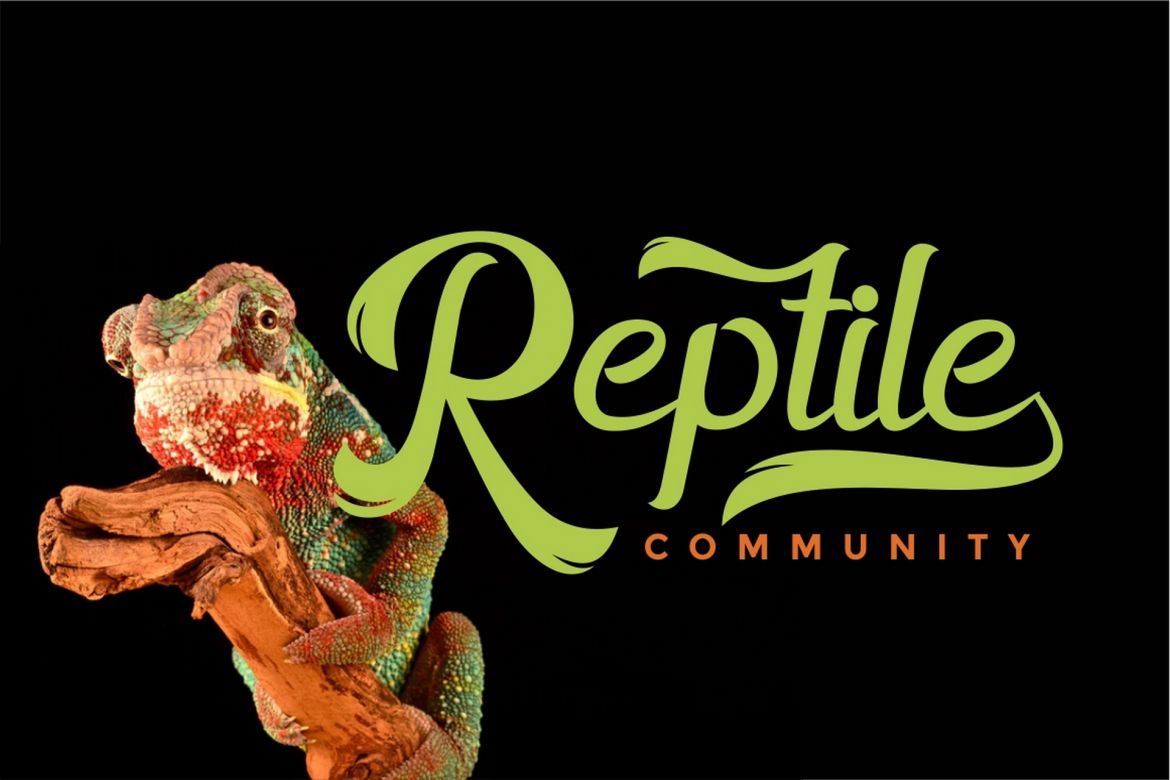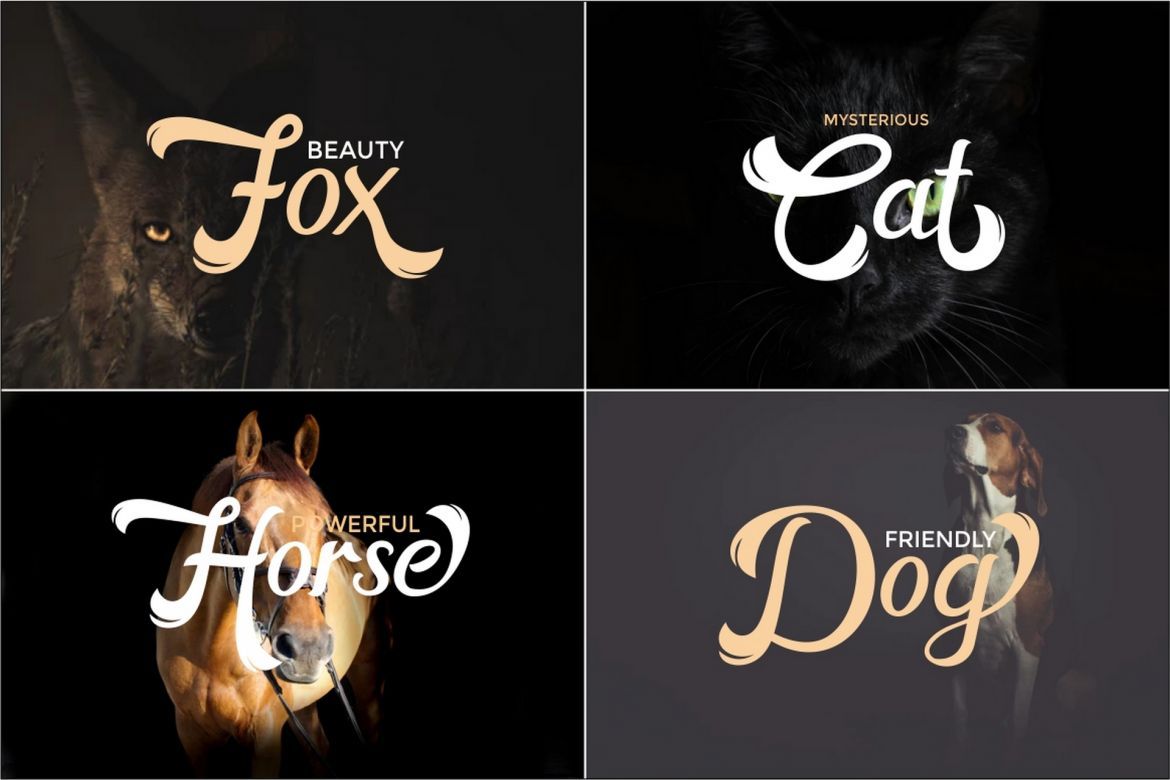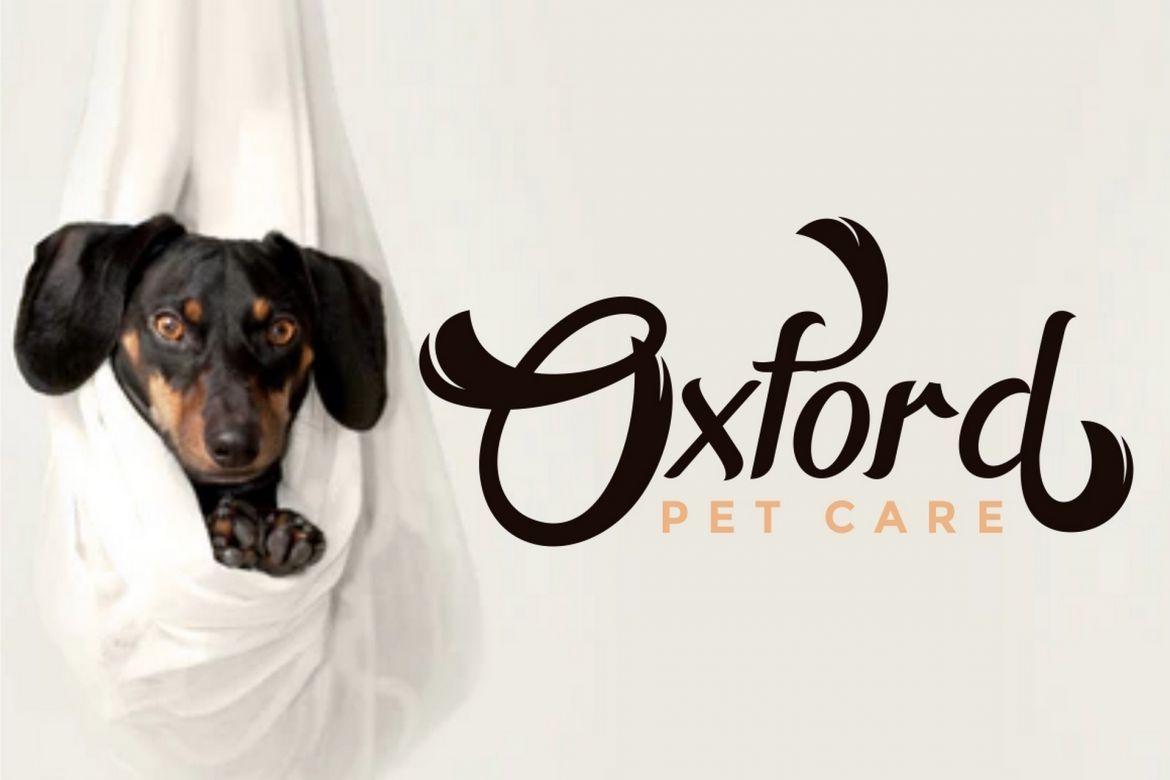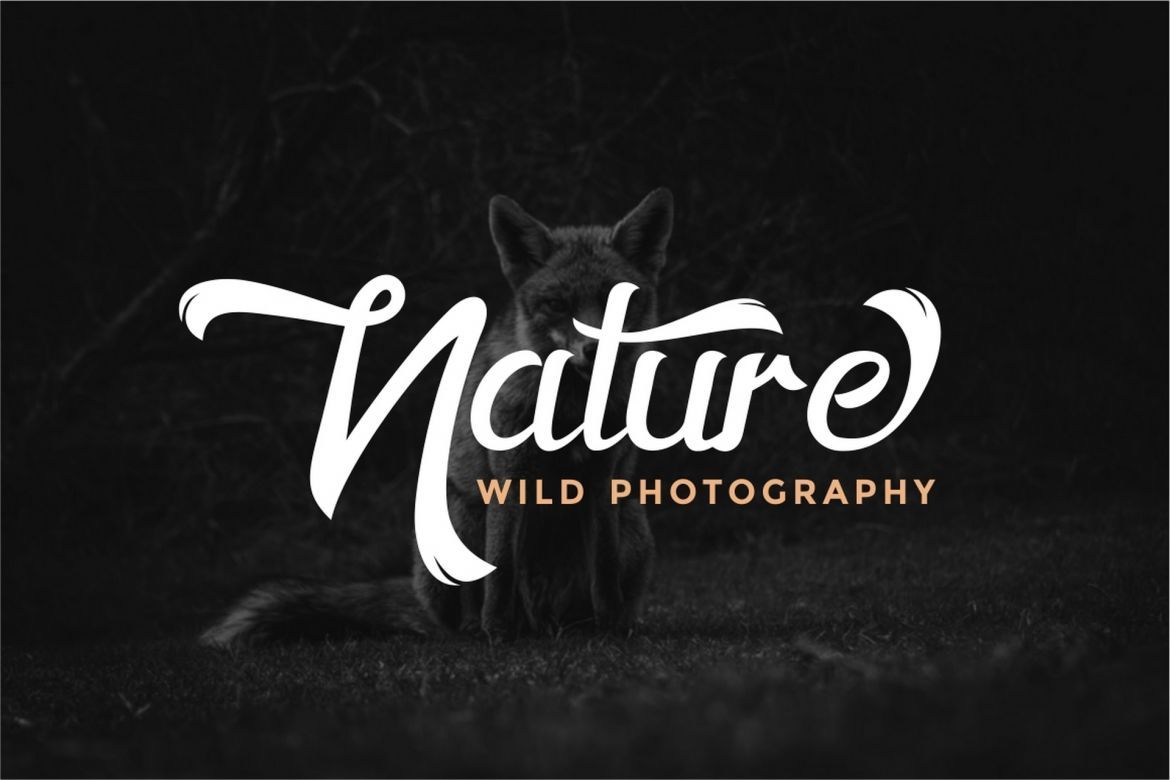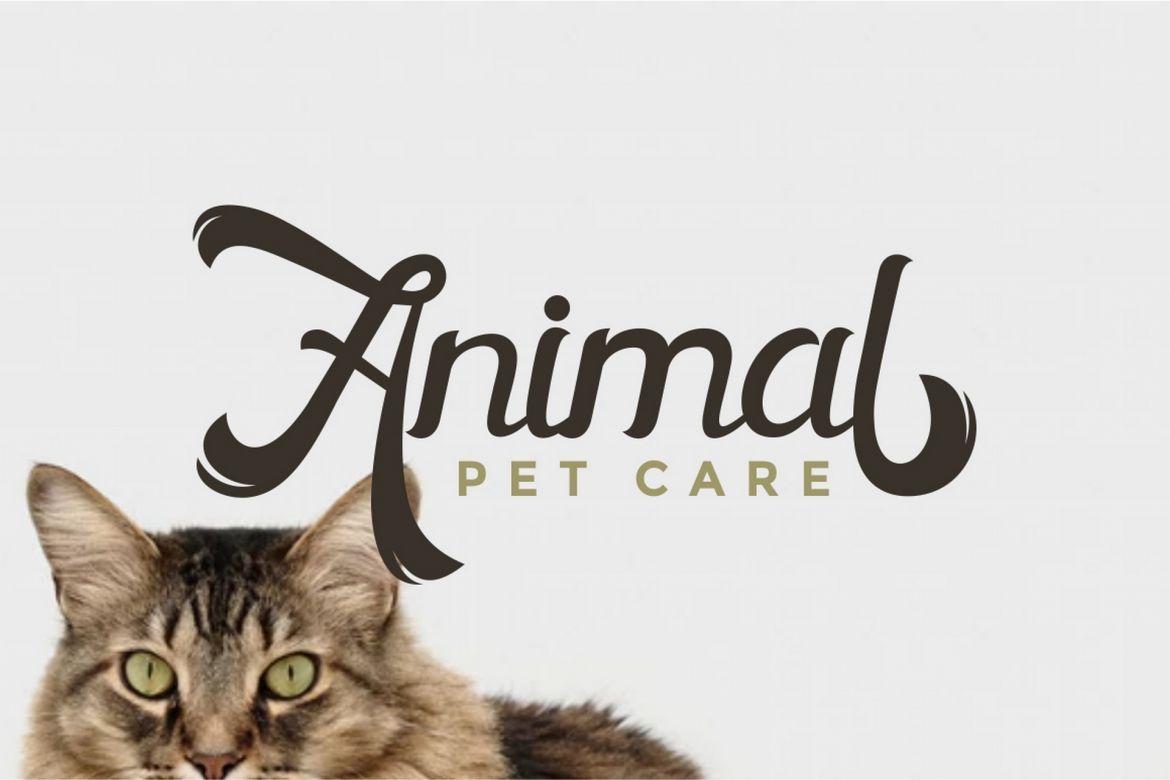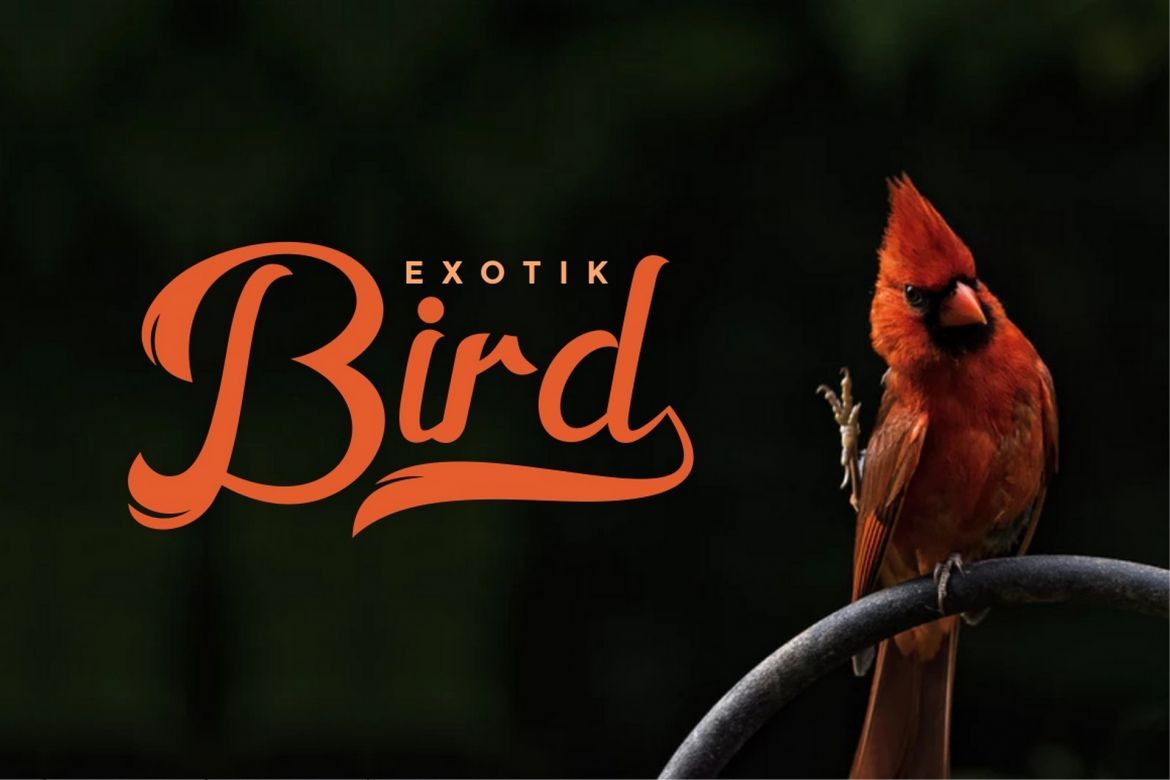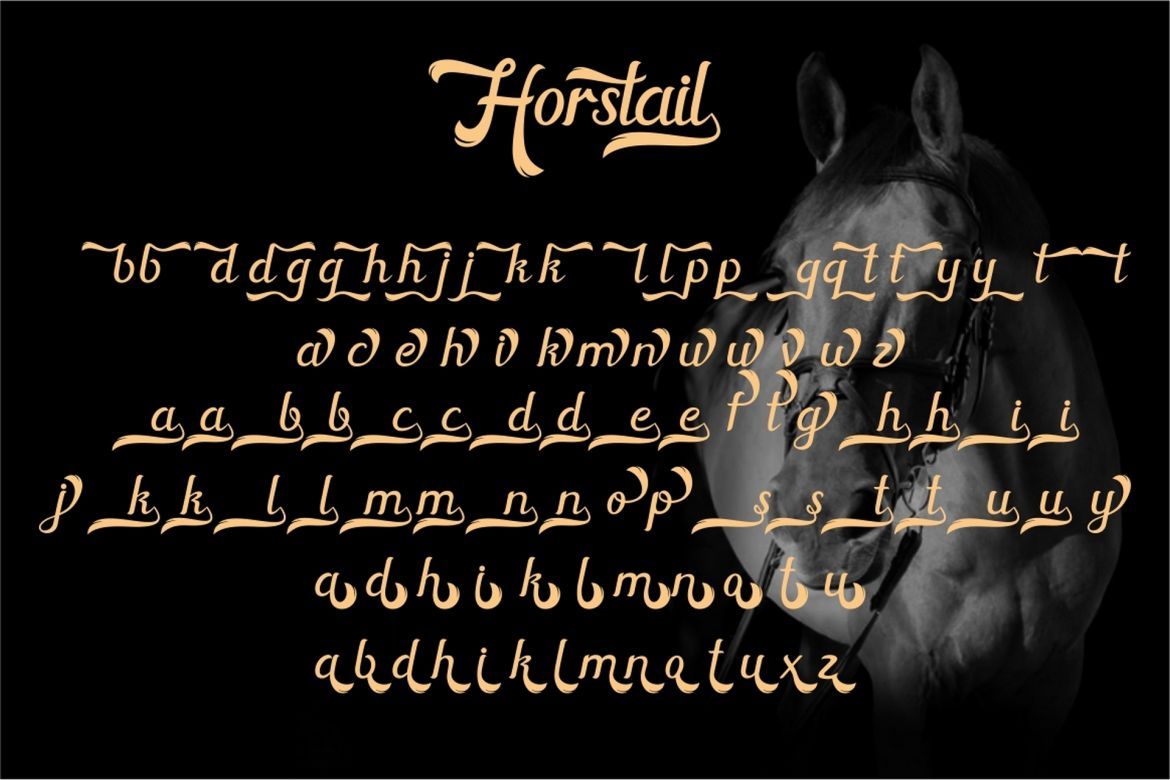
Horstail Display Font
Horstail is a script typeface, with a swash tail like an animal's tail, it is perfect for you animal lovers. suitable for logos, Tittle, tagline, Tshirt, handwritten quotes, product packaging, poster, merchandise, social media, labels, branding, greeting cards, etc.
• - alternate
• - number, punctuation and symbols
• - uppercase & lowercase